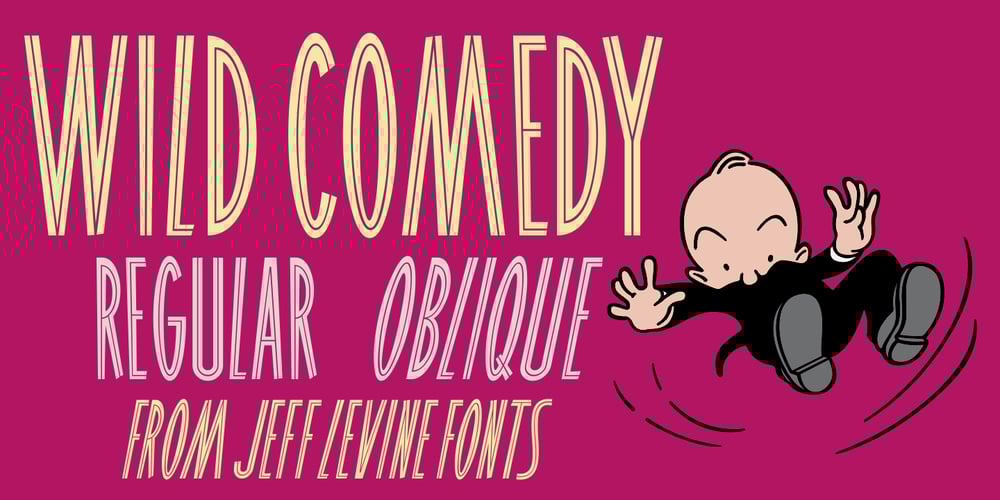
Wild Comedy JNL Font Family was designed by Jeff Levine and published by Jeff Levine. Wild Comedy JNL contains 2 styles and family package options. John Sigvard ‘Ole’ Olsen and Harold Ogden ‘Chic’ Johnson were musicians-turned-comedians who rose to fame in the zany 1938 Broadway musical review “Hellzapoppin’”.They reprised their roles in the 1941 film adaptation of the show, and the opening title card of the film has “Hellzapoppin’” hand lettered in a tall, condensed sans serif design with an inline.This is now available as Wild Comedy JNL in both regular and oblique versions.